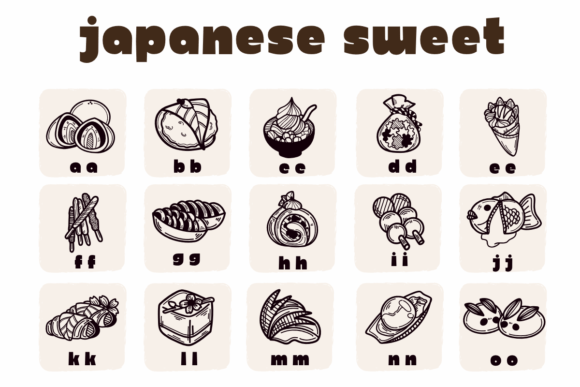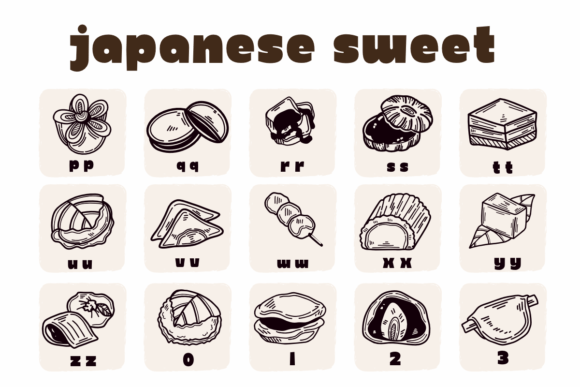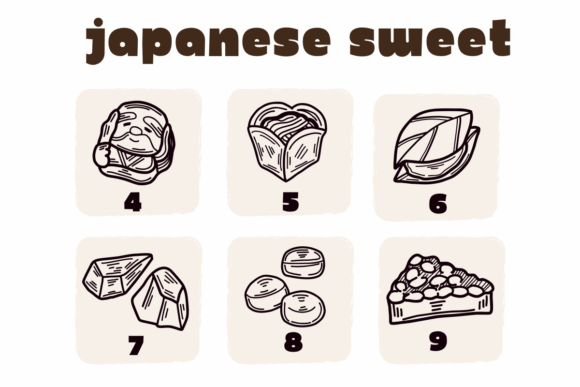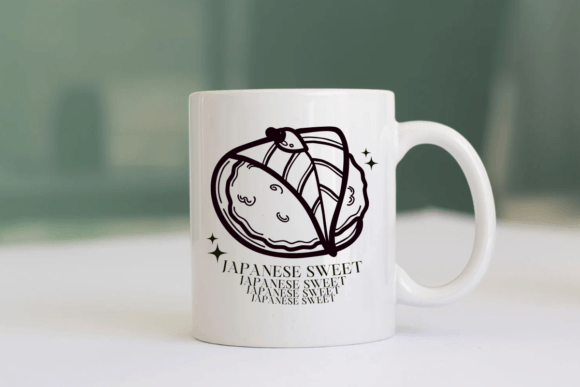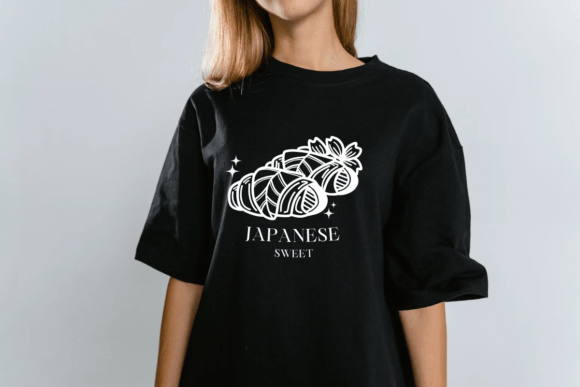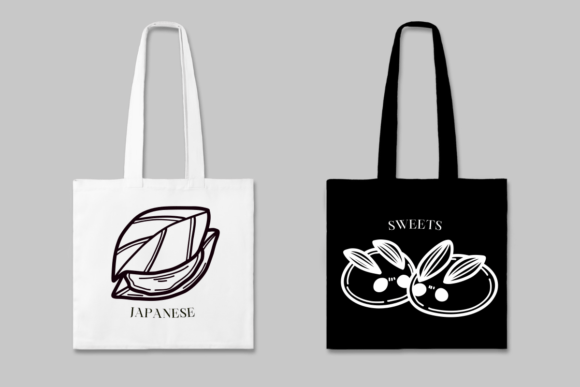
Introduction to Japanese Sweets Font
Have you ever stumbled upon a font that makes you smile? For designers, finding the perfect font can be a game-changer, elevating a project from ordinary to extraordinary. It happened to me when I discovered the Japanese Sweets Font – a delightful, whimsical font that brings traditional Japanese sweets to life.
Each letter of this charming font features a mouthwatering treat, such as mochi, dorayaki, or taiyaki, making your text look like a sweet-tooth’s dream come true. Whether you’re working on a creative project or simply want to add a touch of personality to your design, Japanese Sweets Font is a valuable resource that’s sure to inspire.
Key Features of Japanese Sweets Font
- High-quality design with intricate details, perfect for creative projects that require a touch of Japanese culture.
- Includes a range of Japanese-inspired characters, including kanji and hiragana, to add a unique touch to your designs.
- Perfect for designers and artists working on creative projects that require a high level of detail and cultural authenticity.
Honest Review: Japanese Sweets Font
I recently stumbled upon the Japanese Sweets Font, and I must say it’s been a delightful addition to my design library. The font is perfect for any creative project that requires a touch of Japanese flair, and the best part? It’s available for free download!
One of the standout features of this font is its versatility. It’s suitable for a wide range of applications, from designing menus and packaging to creating digital art and graphics. I particularly love the fact that it comes with a transparent background, making it easy to layer and composite with other design elements.
- ✨ Versatile font suitable for various design applications
- ⚠️ Limited character set, which may not be ideal for extensive text-based designs
- ⚠️ Not suitable for body text, as it’s more of a decorative font
Overall, I’m impressed with the Japanese Sweets Font. It’s a high-quality design resource that’s perfect for adding a touch of Japanese flair to your creative projects. While it has some limitations, it’s definitely worth adding to your design library.
To get the most out of the Japanese Sweets Font, use it with a transparent background to create a unique and eye-catching design. You can also use the font in combination with other design elements, such as images and graphics, to create a high-quality design.
The Japanese Sweets Font is ideal for use in creative projects, such as designing menus for restaurants, creating invitations for events, or developing branding materials for businesses. Its high-quality design and unique style make it a valuable resource for designers and artists.